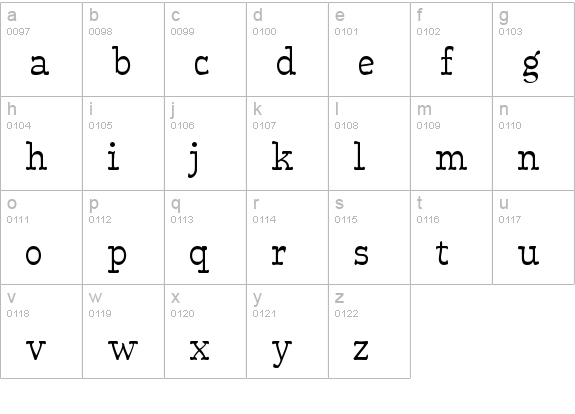
Erkball Font Details
Erkball font is a modern and stylish typeface that exudes elegance and sophistication. Its sleek lines and geometric shapes make it a versatile choice for various design projects, from branding to editorial design. With its unique character and attention-grabbing presence, Erkball font is sure to make your text stand out. And the best part? Erkball font is completely free to download at FontsMarket.com. Whether you're a professional designer or a hobbyist looking to add a touch of class to your creations, Erkball font is the perfect choice. Download it today and elevate your designs with this stunning typeface.